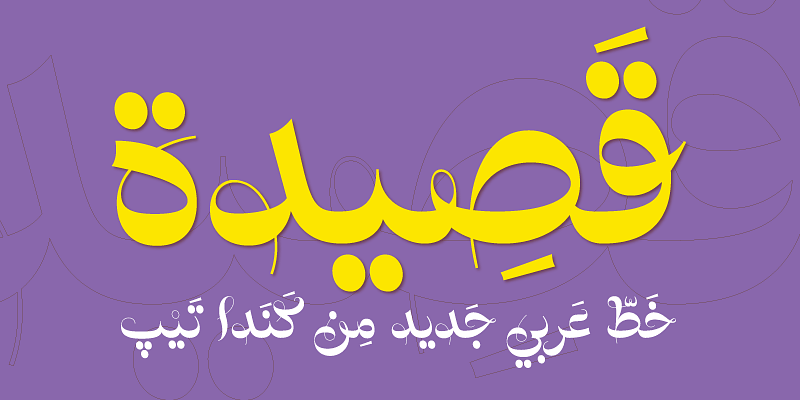
Qasida Font Free Download is an elegant Arabic and Latin typeface that harmoniously blends calligraphic traditions with contemporary type design. Inspired by classical Arabic poetry (qasida) and refined for modern readability, Qasida is ideal for cultural publications, branding, editorial design, book covers, and bilingual projects where sophistication and authenticity are key.
With smooth curves, thoughtful spacing, and stylistic flourishes, Qasida Font captures both poetic rhythm and typographic precision. It supports both Arabic and Latin scripts with equal grace, making it perfect for multilingual layouts that require visual balance and cultural nuance.